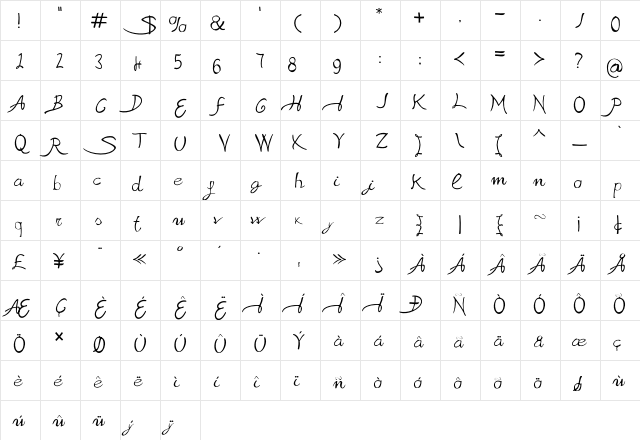
Sabrina AT Regular
| Foundry | P. A. Vannucci |
| Designer | P. A. Vannucci |
Sabrina AT is a composed and adaptable typeface that performs quietly and consistently across a wide range of design contexts.